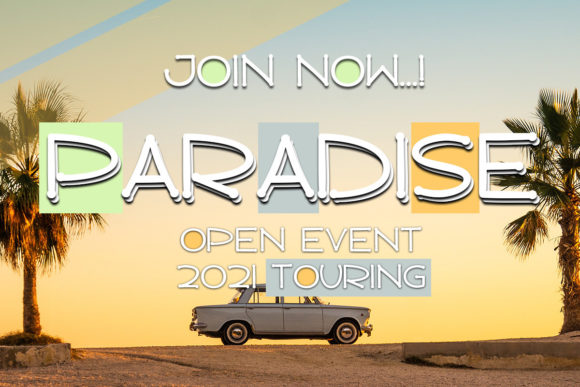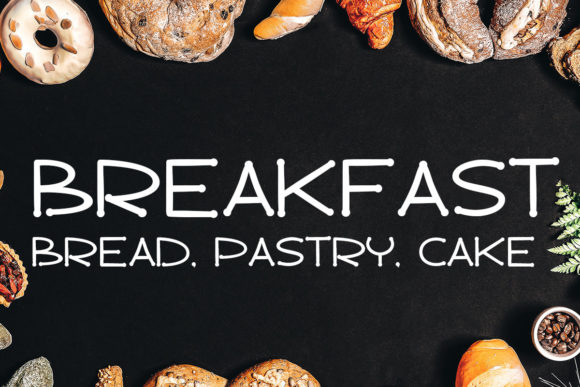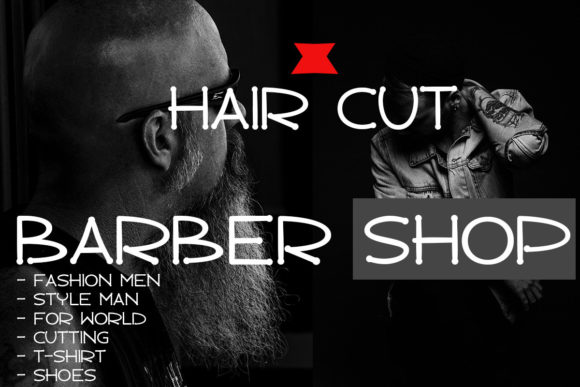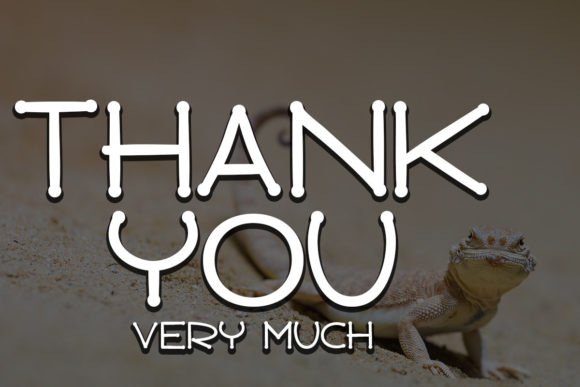
Gecko Font: Elevate Your Designs with a Modern and Clean Display Font
Are you tired of using the same old fonts in your designs? Look no further than Gecko Font, a modern and clean display font that’s sure to brighten up any project. With its versatility and neat vibe, Gecko Font is the perfect addition to your font collection. In this article, we’ll dive into the features and benefits of Gecko Font, and explore how you can use it to take your designs to the next level.
What is Gecko Font?
Gecko Font is a modern and clean display font designed to make a statement. Its sleek lines and neat curves make it perfect for a wide range of design applications, from logos and branding to posters and social media graphics. With its high level of versatility, Gecko Font can be used in both digital and print designs, making it a great addition to any designer’s toolkit.
Key Features of Gecko Font
• Modern and Clean Design: Gecko Font features a modern and clean design that’s perfect for creating sleek and sophisticated designs.
• Versatile: With its wide range of applications, Gecko Font is a versatile font that can be used in a variety of design projects.
• Neat Vibe: The font’s neat curves and lines give it a professional and polished look that’s sure to impress.
• Endless Variations: With Gecko Font, you can experiment with endless variations to create a unique look that suits your design style.
Benefits of Using Gecko Font
So why choose Gecko Font for your designs? Here are just a few benefits of using this amazing font:
• Stand Out from the Crowd: With its modern and clean design, Gecko Font is sure to make your designs stand out from the crowd.
• Professional Look: The font’s neat vibe gives it a professional and polished look that’s perfect for creating sophisticated designs.
• Easy to Read: Despite its modern design, Gecko Font is easy to read, making it perfect for use in body text as well as headlines.
• Customizable: With its endless variations, you can customize Gecko Font to fit your design style and needs.
How to Use Gecko Font in Your Designs
So how can you use Gecko Font in your designs? Here are a few ideas to get you started:
• Logos and Branding: Use Gecko Font to create a modern and sleek logo that’s sure to make a statement.
• Posters and Flyers: Add a touch of sophistication to your posters and flyers with Gecko Font.
• Social Media Graphics: Use Gecko Font to create eye-catching social media graphics that are sure to grab attention.
• Web Design: Add a professional touch to your website with Gecko Font, perfect for use in headings and titles.
Tips and Tricks for Getting the Most out of Gecko Font
Here are a few tips and tricks for getting the most out of Gecko Font:
• Experiment with Different Sizes: Don’t be afraid to experiment with different sizes to find the perfect fit for your design.
• Play with Colors: Try out different colors to add a pop of personality to your design.
• Mix and Match with Other Fonts: Don’t be afraid to mix and match Gecko Font with other fonts to create a unique look.
In conclusion, Gecko Font is a modern and clean display font that’s perfect for designers and crafters looking to elevate their designs. With its versatility, neat vibe, and endless variations, Gecko Font is sure to brighten up any project. Whether you’re creating logos, posters, social media graphics, or websites, Gecko Font is a great addition to your font collection. So why wait? Download Gecko Font today and start creating stunning designs that are sure to impress!